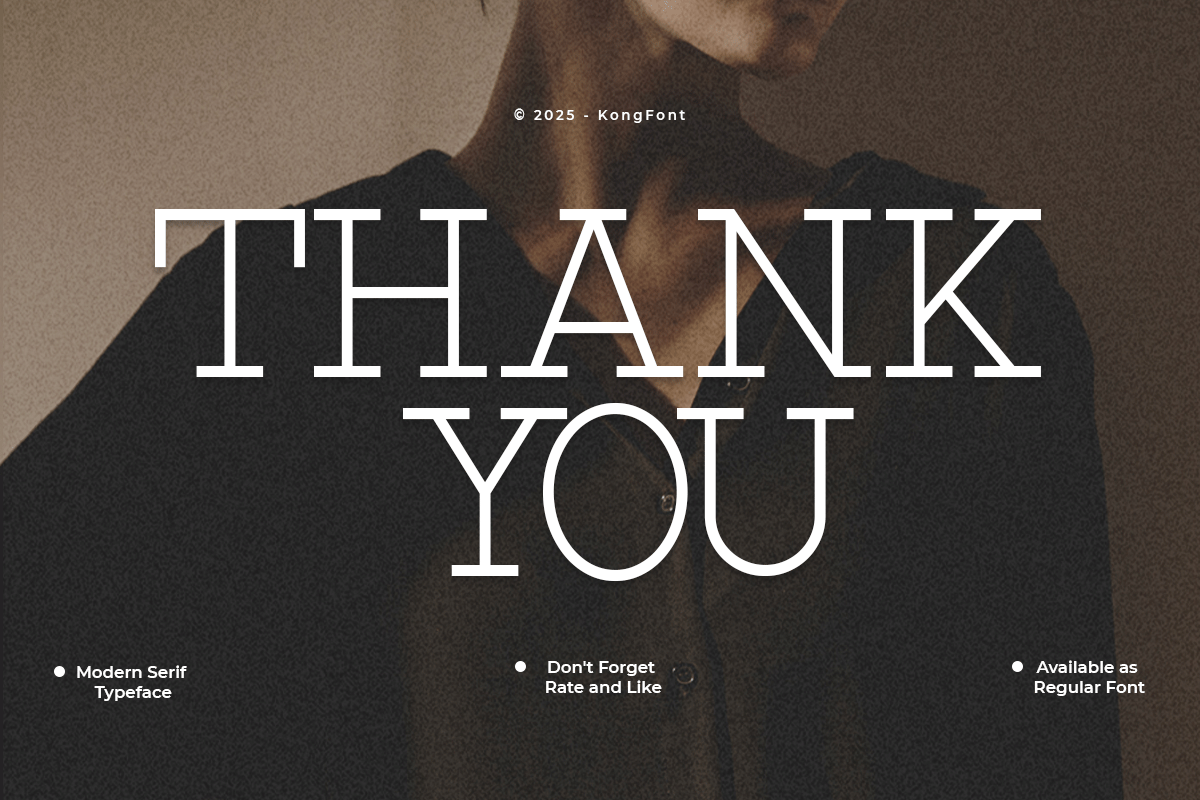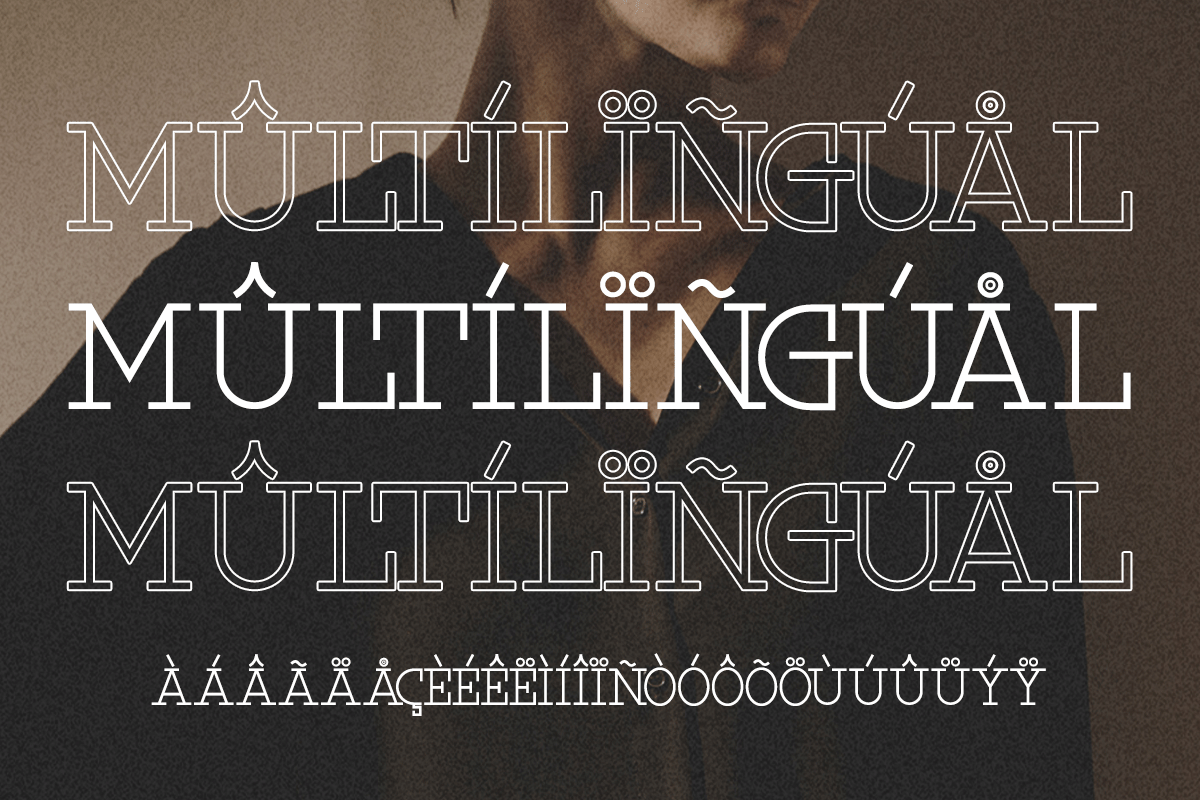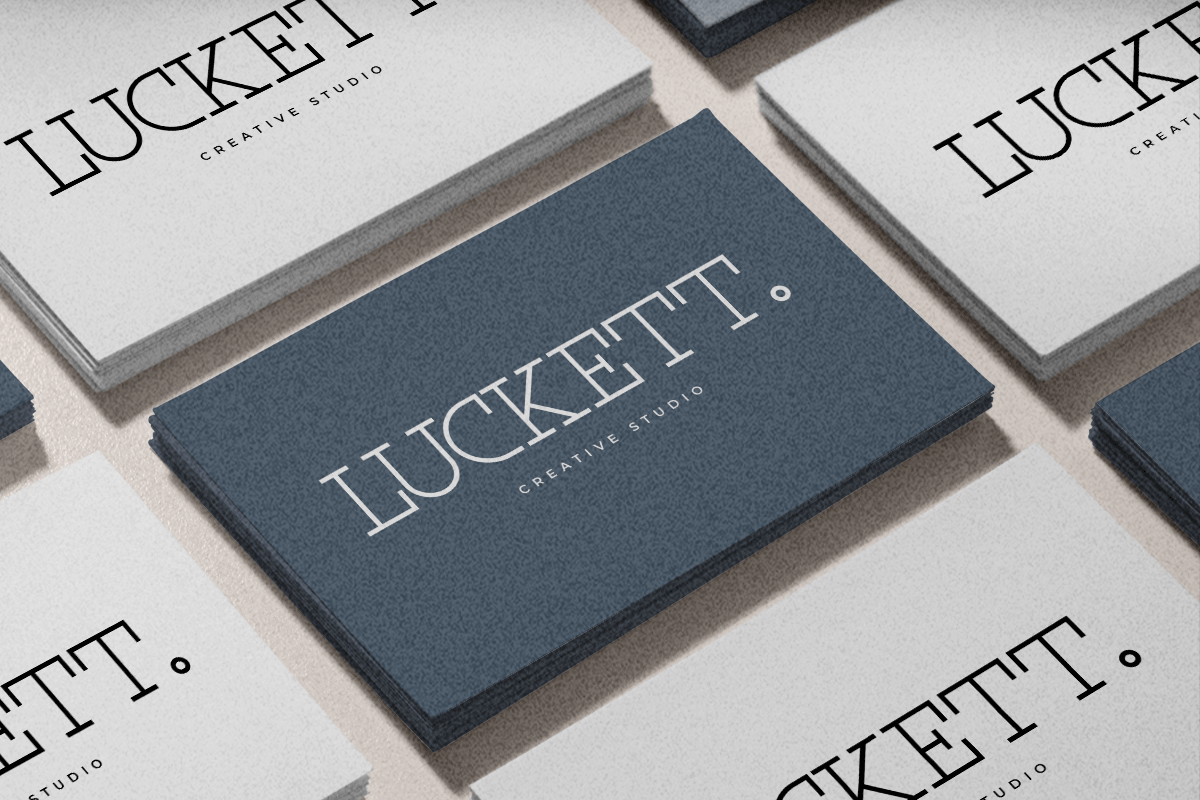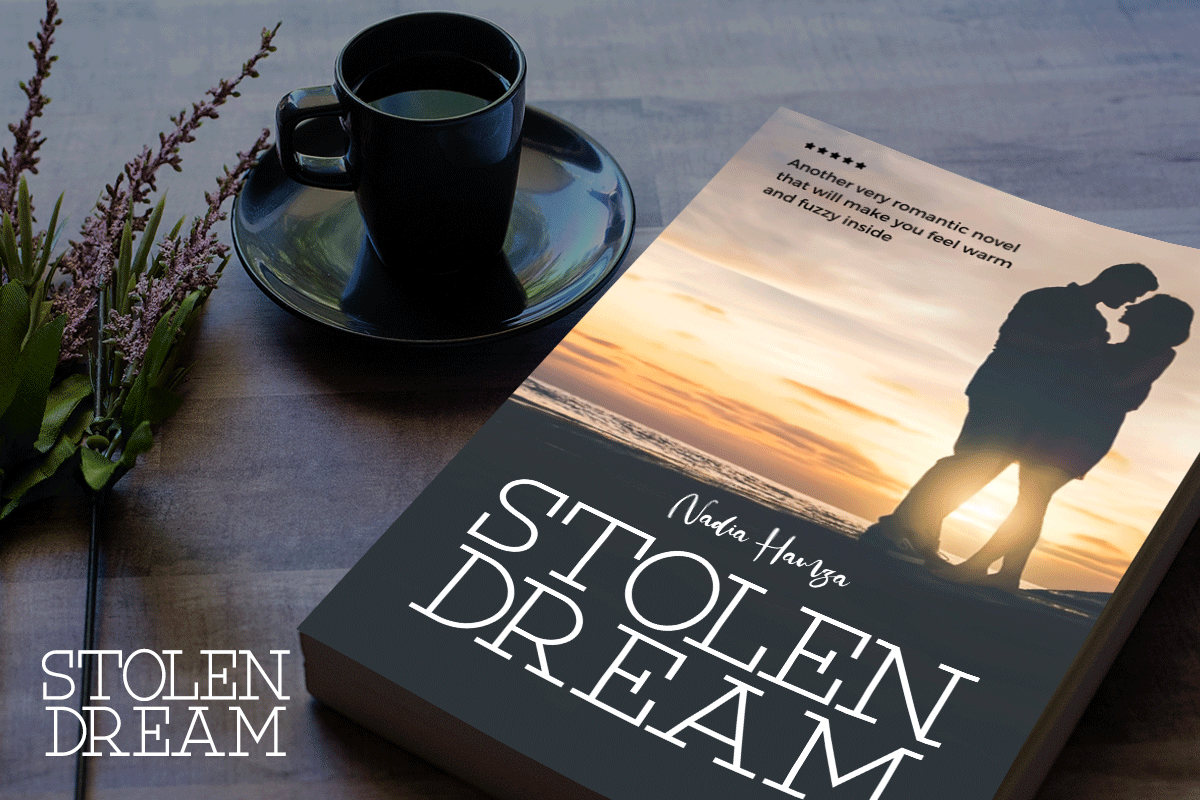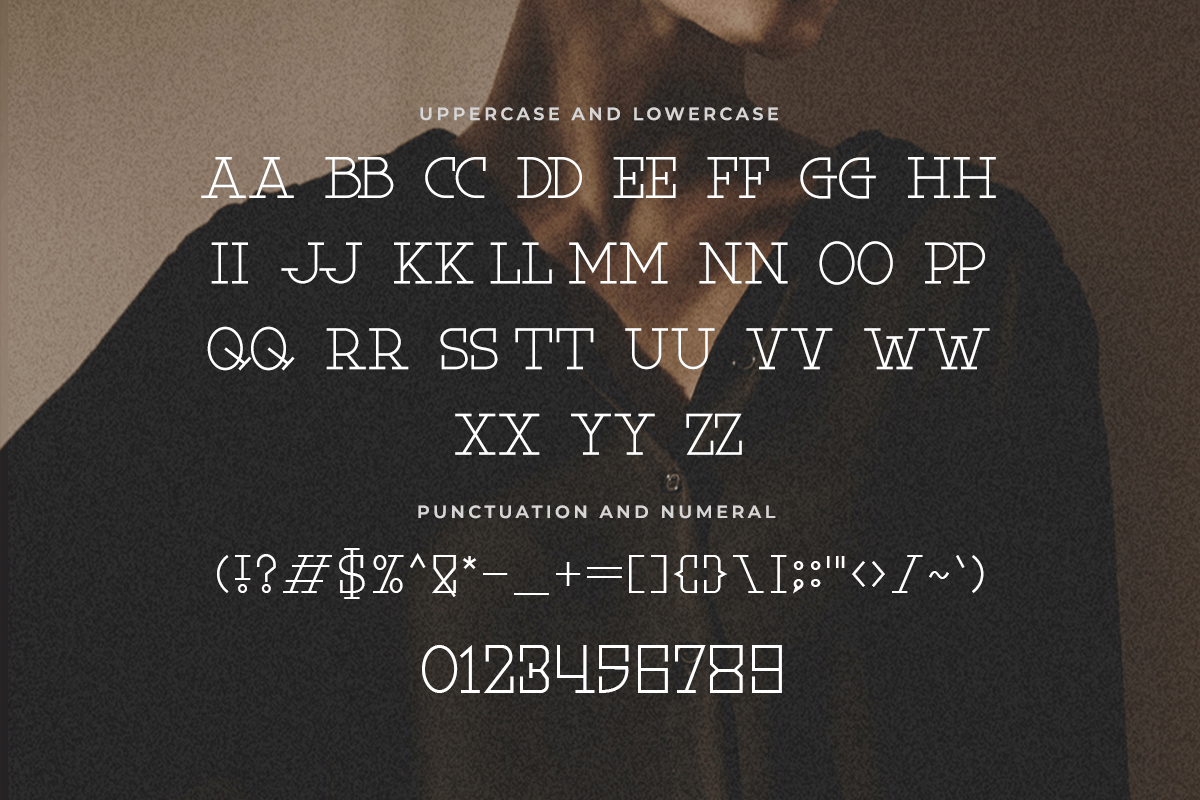
TElite Classy Serif Font As the name suggests, Elite Classy Serif Font is a typeface that exudes a stylish and elegant impression. Easy to read yet artistic, this font can serve many uses depending on the user. This font is best used in large sizes because it has an extra-long serif. Elite Classy Serif Font is a modern and stylish font. This font is part of the serif font family. Elite Classy Serif Font can use as a digital font such as; for promotions on the web and social media, as well as in print as magazines and posters. One product that can be combined with this font is fashion and beauty. Magazines covering fashion and beauty topics can use the Elite Classy Serif Font as their cover. This font can also be used as branding of a product, such as brand tags and posters. In light of modern business needs, Elite Classy Serif Font is also suitable for personal business cards and business signage that denotes a place, such as cafes, boutiques, and make-up shops. Our Serif fonts collection is compatible for use as; Figma Fonts, Canva Fonts, Freepik Fonts, and Adobe Fonts. They also work as Windows Fonts and Apple Fonts. For your social media needs, you can use and install fonts in our collection of serif fonts to use as Instagram Fonts, Facebook Fonts, and Twitter Fonts.